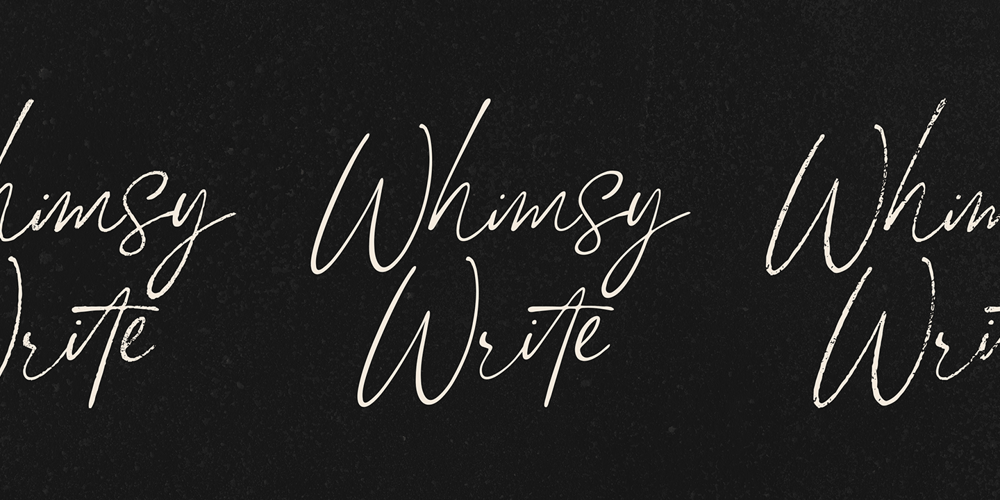
Whimsy Write
Whimsy Write font
Whimsy Write Font Family was designed by Vladimir Fedotov, Plamen Petrov and published by VP Creative Shop. Whimsy Write contains 6 styles and family package options. Introducing Whimsy Write, the ultimate natural handwriting script that supports an impressive 87 languages. Perfect for designers, typographers, and creatives, Whimsy Write offers clean, rough, and super rough versions to suit any project. Each style also includes an italic option, giving you even more flexibility. Whether you’re creating a personal note, a creative poster, or a multilingual document, Whimsy Write’s authentic and versatile designs will add a unique, handwritten touch to your work. Elevate your typography with Whimsy Write, where natural handwriting meets global versatility.